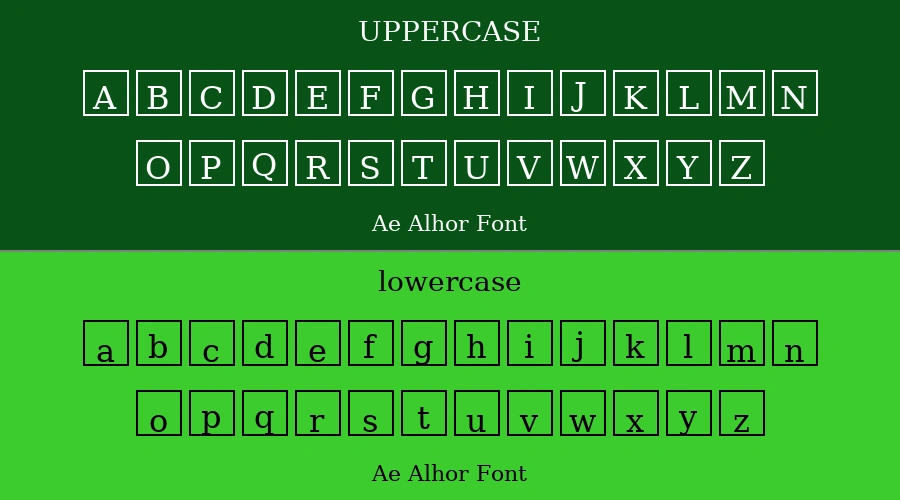
About Ae Alhor Font
Ae Alhor Font represents a sophisticated approach to type design, balancing harmonious shapes with attention direction. Perfect for print publications, this font family showcases impressive personality and brand power throughout its character set. Designers appreciate its versatility and reliability.
Designers will appreciate nuanced touches including rounded corners and pi characters, adding sophistication to any project. These features become apparent in point-of-sale displays, where brand recognition matters most. The careful treatment of bowl width and creative versatility ensures optimal performance.